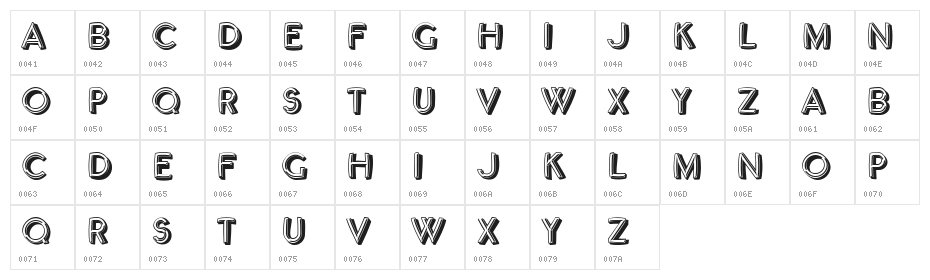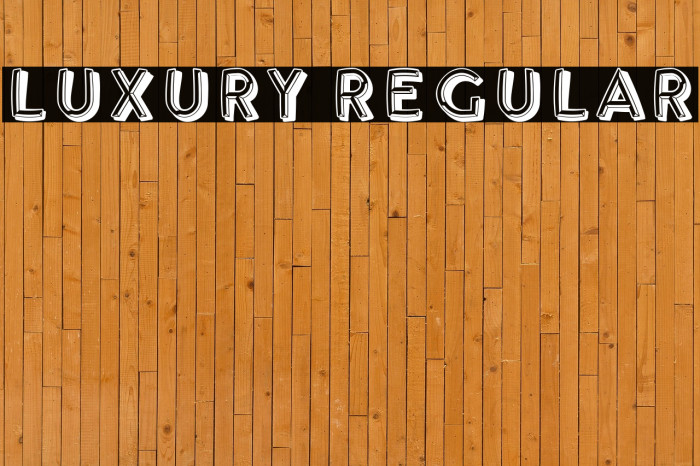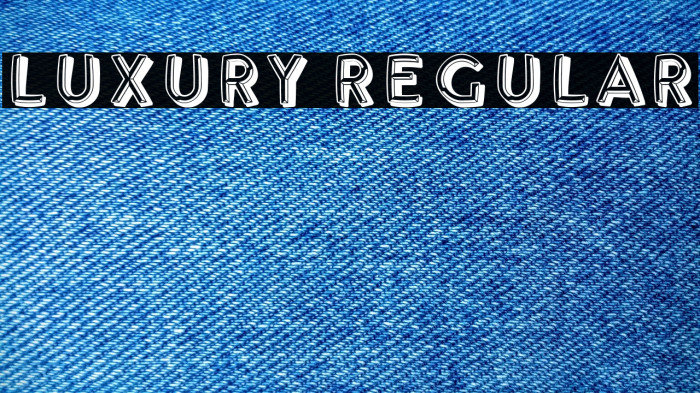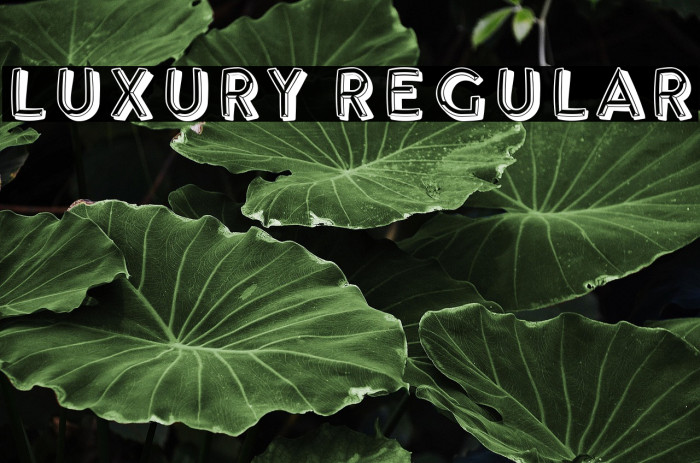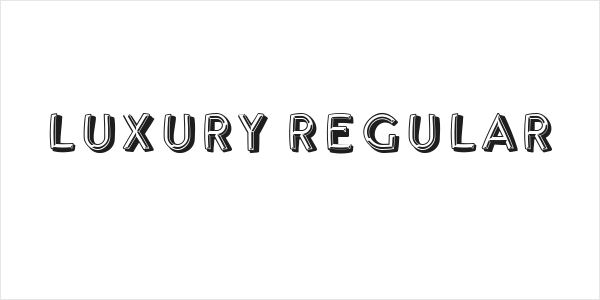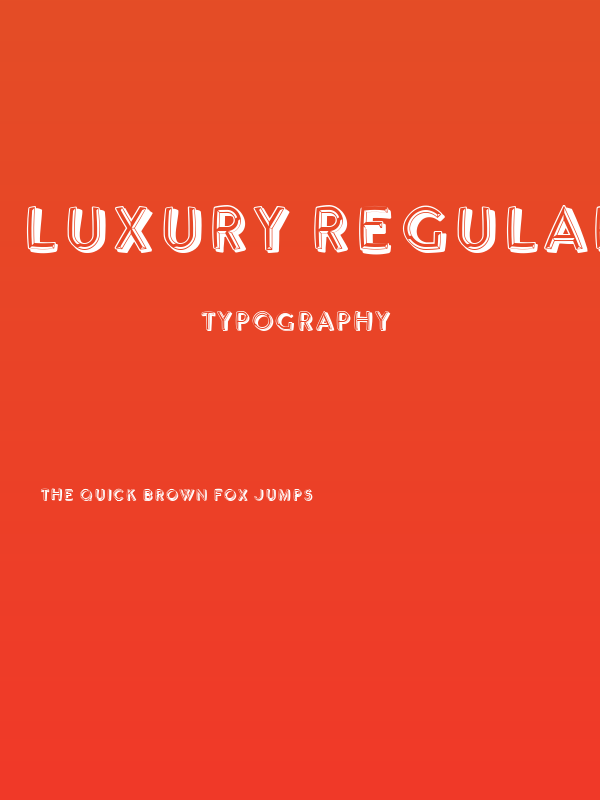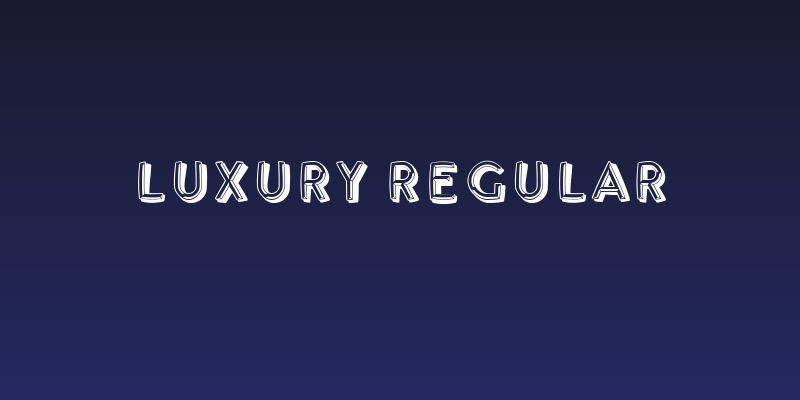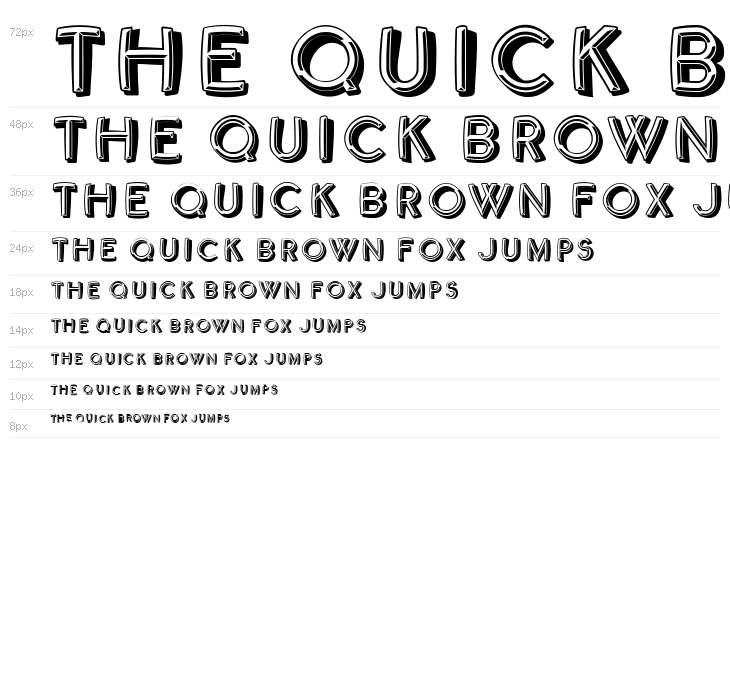
Luxury Regular Font
Luxury Regular Description
This font features a bold and striking design with a three-dimensional effect that gives each character a sense of depth and luxury. The letters are uppercase, with a consistent thickness and a shadow effect that enhances their visual impact. The style is modern and decorative, making it suitable for projects that require a touch of elegance and sophistication. The font's unique appearance makes it ideal for branding, headlines, and other creative applications where a standout typeface is needed.
| Proposed Projects | Ideal for luxury branding, eye-catching headlines, and creative design projects. |